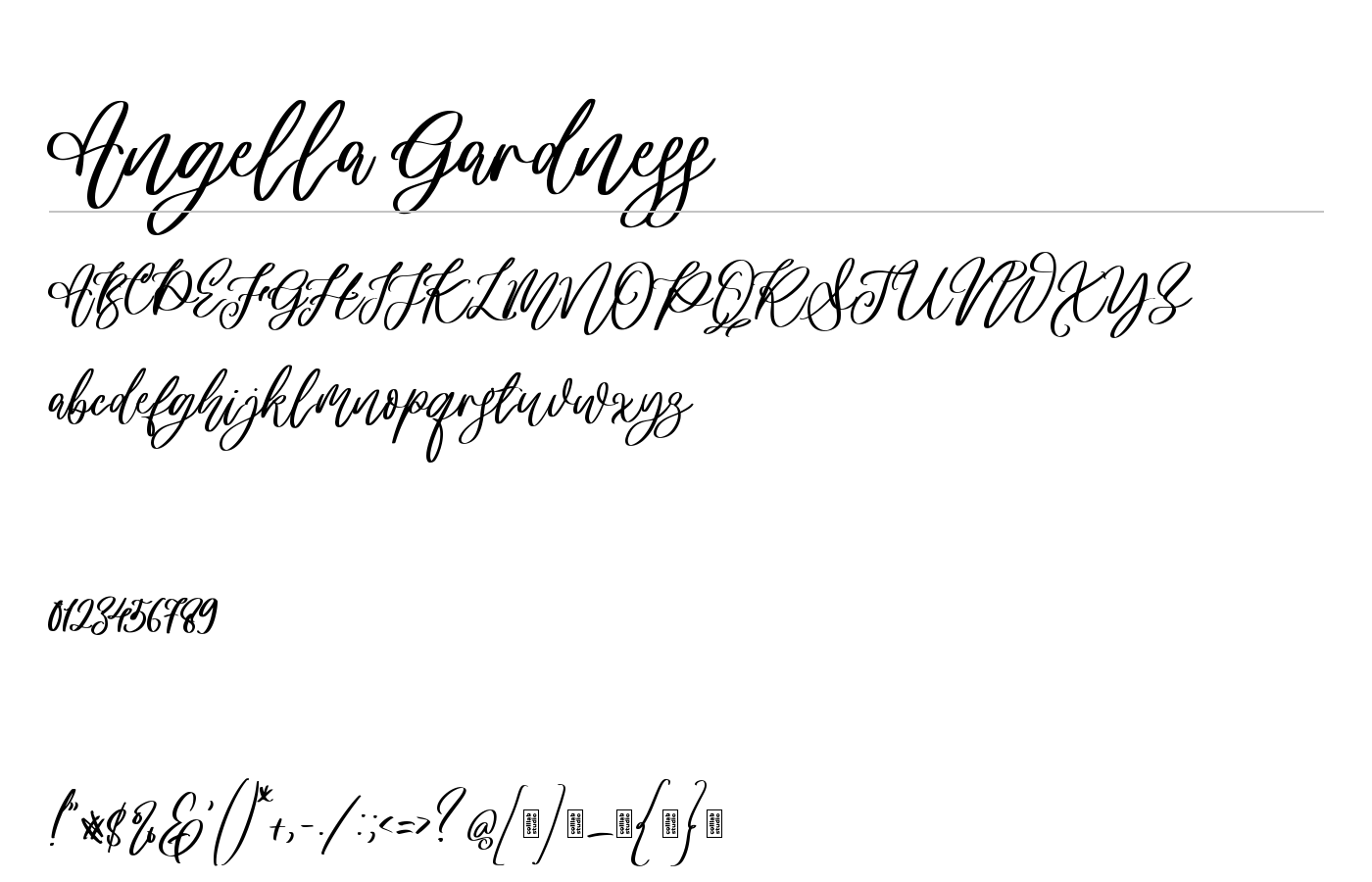
Angella Gardness is a refined script font with elegant, flowing strokes that convey a sense of sophistication and charm. Its slender, slightly condensed letterforms combined with smooth, calligraphic curves make it ideal for luxury branding, invitations, and stylish headlines where a personal, graceful touch is desired. This font shines in settings that call for a delicate yet polished aesthetic, adding warmth and creativity to any design.
Angella Gardness Font
About Angella Gardness Font
| Font family | Angella Gardness Font |
| Designer | Colllab Studio |